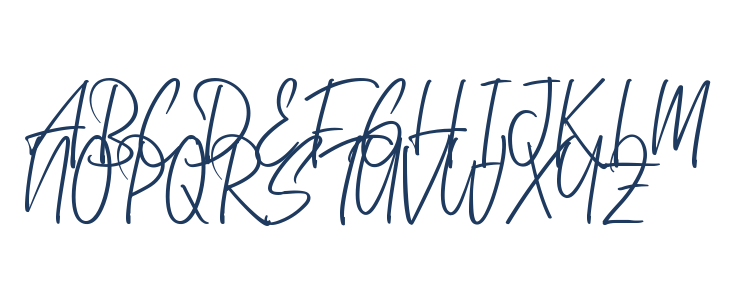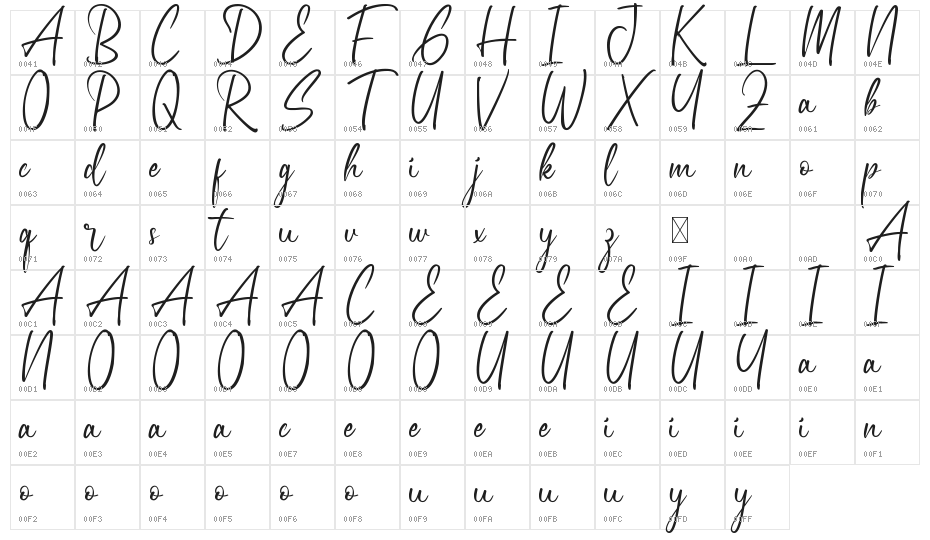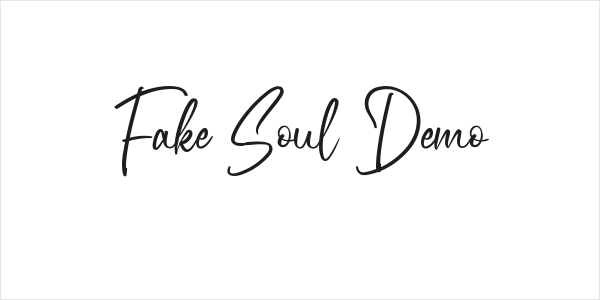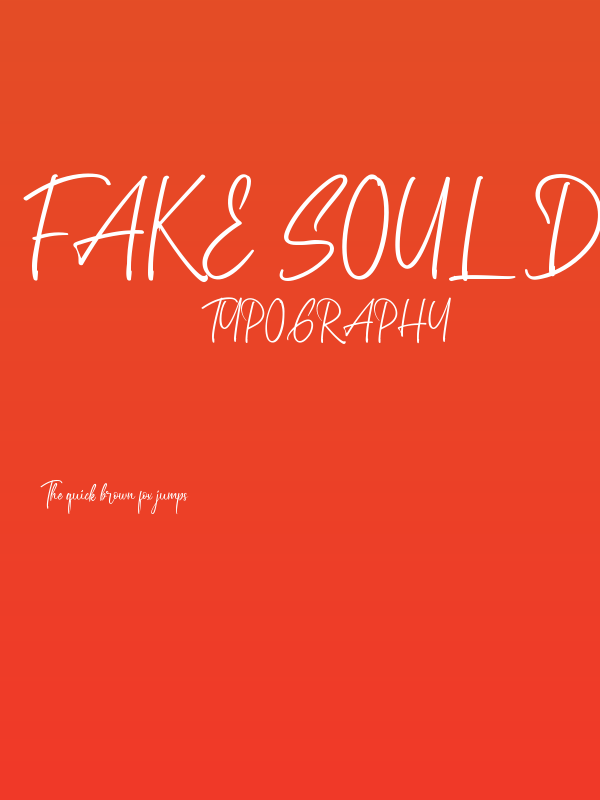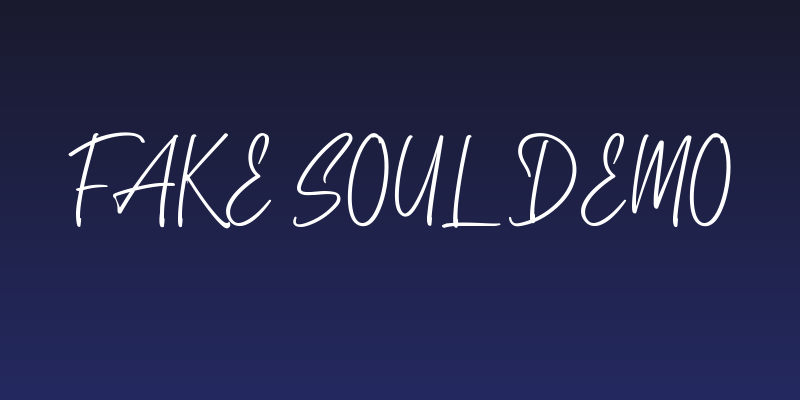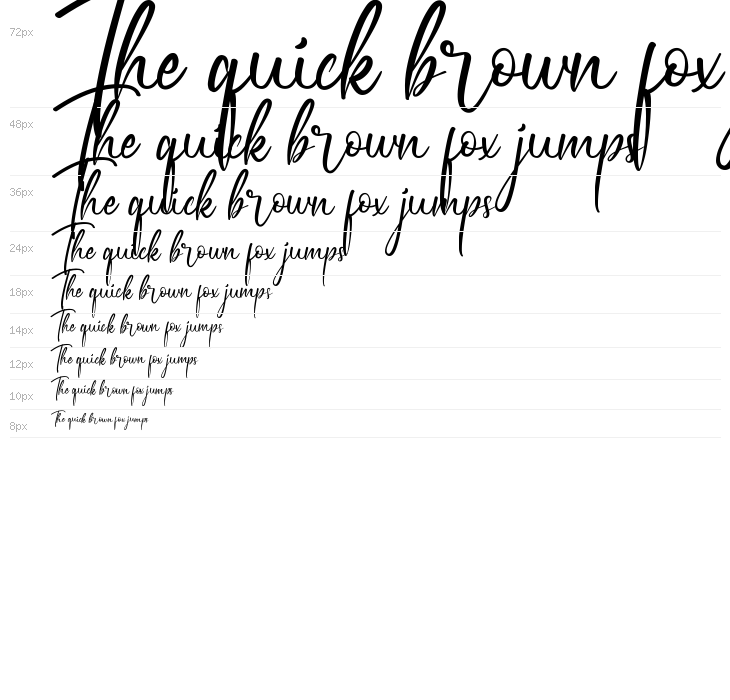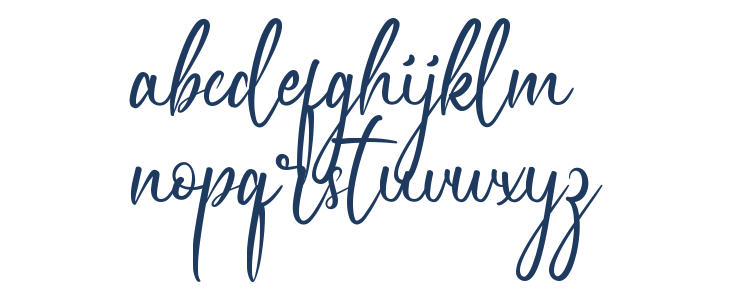
Fake Soul Demo Font
Fake Soul Demo Description
A casual, handwritten script font with tall, narrow letterforms and fluid, connected strokes. The uppercase and lowercase characters have a natural, slightly irregular appearance, mimicking authentic handwriting. The font features moderate contrast in stroke thickness and expressive, elongated ascenders and descenders.
| Overall Style | Decorative, Casual, Modern |
| Use Case | Logos, Headlines, Social media, Invitations |
| Proposed Projects | Greeting cards, invitations, personal branding, social media graphics, quotes, and casual posters. |